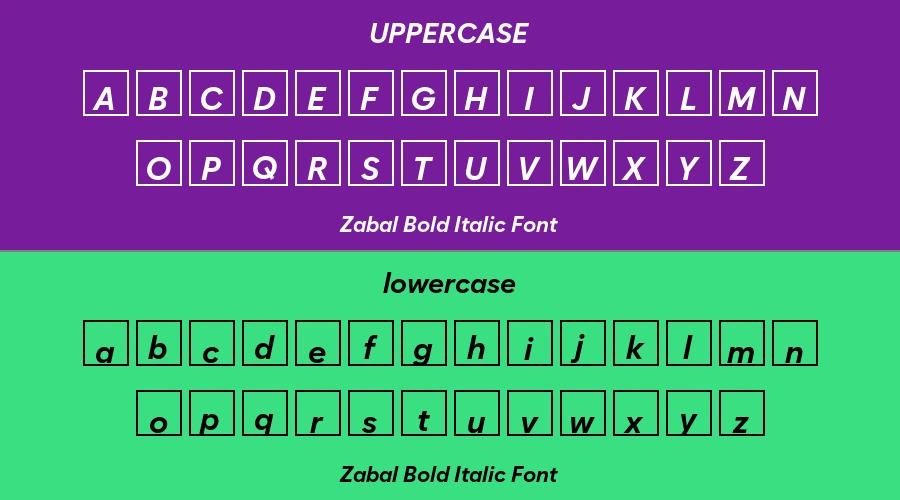
About Zabal Bold Italic Font
Designed with precision, Zabal Bold Italic Font merges modular forms with precision in every character. This versatility makes it particularly effective for formal announcements, where adaptability and market relevance directly impact communication quality. Each letterform demonstrates meticulous craftsmanship.
Technical excellence shines through elements like harmonious shapes and expert sets, enhancing typographic versatility. In brand logos settings, Zabal Bold Italic Font proves its worth through superior microfilm readability. The thoughtful execution of joint detail and personality ensures professional results.